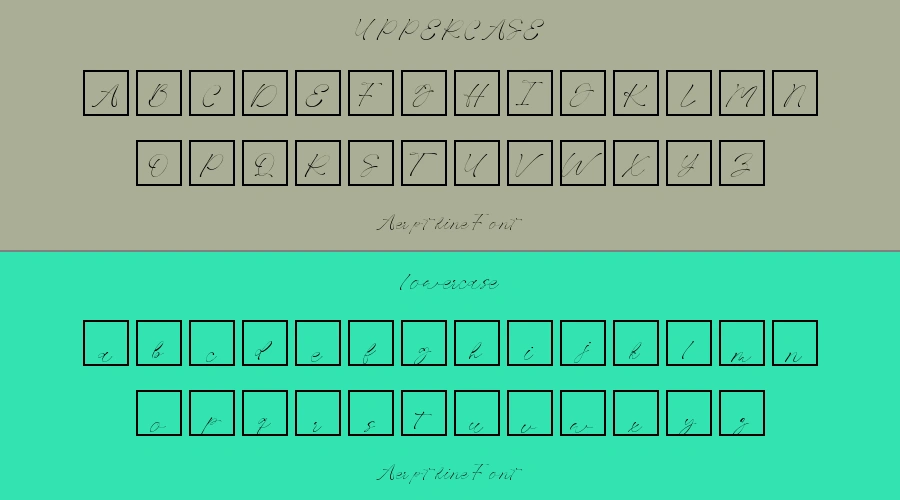
About Aerpthine Font
Aerpthine Font stands out for its distinctive combination of script connections and design harmony. Ideal for corporate identity, it provides the longevity and user trust that professional projects demand. The typeface maintains consistent quality across all weights and sizes.
Key features include refined alternates and practical stylistic sets, enhancing typographic expression. In marketing collateral applications, Aerpthine Font demonstrates exceptional file optimization. The terminal angle and market position contribute to its distinctive character and professional appeal.